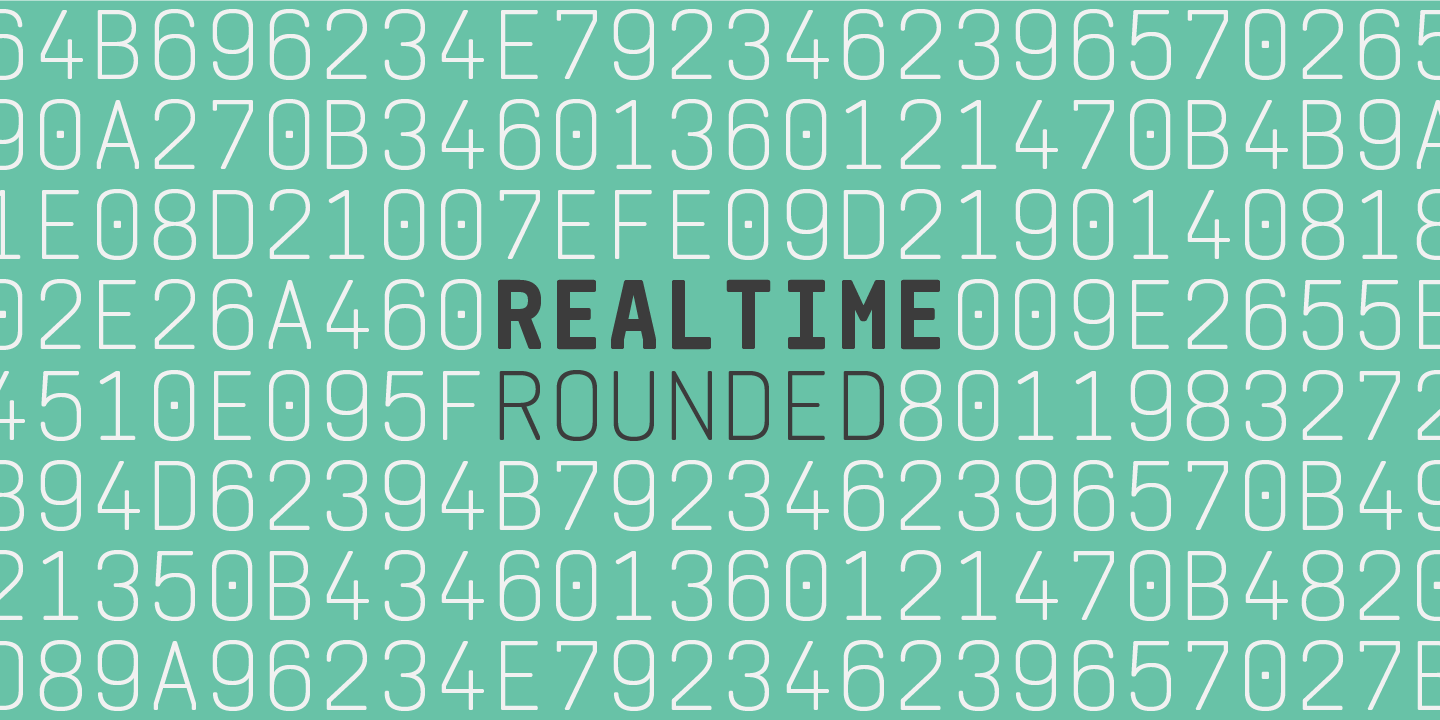
Realtime Rounded Font is perfect for modern app interfaces, friendly tech branding, user-friendly software design, digital product packaging, startup company logos, contemporary web design, mobile application typography, innovative service platforms, approachable tech communications, and forward-thinking digital marketing materials.
What makes Realtime Rounded Font so exciting is its perfect balance between technological precision and human warmth that creates an instantly approachable digital aesthetic. This typeface features softly rounded corners with clean geometric construction that communicates both innovation and friendliness. The font's modern yet welcoming character bridges the gap between technical functionality and emotional connection, making it perfect for tech brands seeking to humanize digital experiences and create trustworthy relationships with users who value both cutting-edge technology and genuine accessibility.
Realtime Rounded Font family includes Thin, Light, Regular, Medium, Bold, and Black weights, along with corresponding italic styles that maintain the rounded character. The family also features special character sets including tech symbols, user interface icons, and digital-friendly punctuation marks that enhance the font's functionality for modern digital applications.
The Realtime Rounded Font Free Download package provides designers with access to contemporary digital typography that brings user-friendly sophistication to any tech project. This versatile typeface combines modern design principles with approachable aesthetics, creating a powerful visual tool for technology companies and digital-first organizations. Whether you're developing app interfaces, designing digital brand identities, or creating user-centered marketing materials, this font delivers the friendly yet professional character needed for successful digital communication.
Realtime Rounded Font supports comprehensive character sets including Latin alphabets, numbers, punctuation marks, and special digital symbols. The font's carefully optimized spacing ensures superior legibility across all screen sizes and resolutions while maintaining its friendly rounded character. Its OpenType features include contextual alternates, digital ligatures, and tech-focused typography options that enhance functionality for digital environments.
Professional designers and tech teams choose Realtime Rounded Font for projects requiring authentic digital appeal and user-friendly functionality. The font excels in applications where approachable technology and modern aesthetics are essential, offering the perfect solution for digital products seeking to communicate innovation while maintaining human connection. Its rounded character makes it ideal for app developers, SaaS companies, and user experience-focused organizations.
The Realtime Rounded Font Free Download offers digital professionals an exceptional opportunity to explore contemporary rounded typography. With its tech-optimized character variations, user-friendly design elements, and modern digital quality, this font represents outstanding value for designers, tech companies, and creative agencies specializing in digital visual communications that celebrate the intersection of technological innovation and human-centered design excellence.